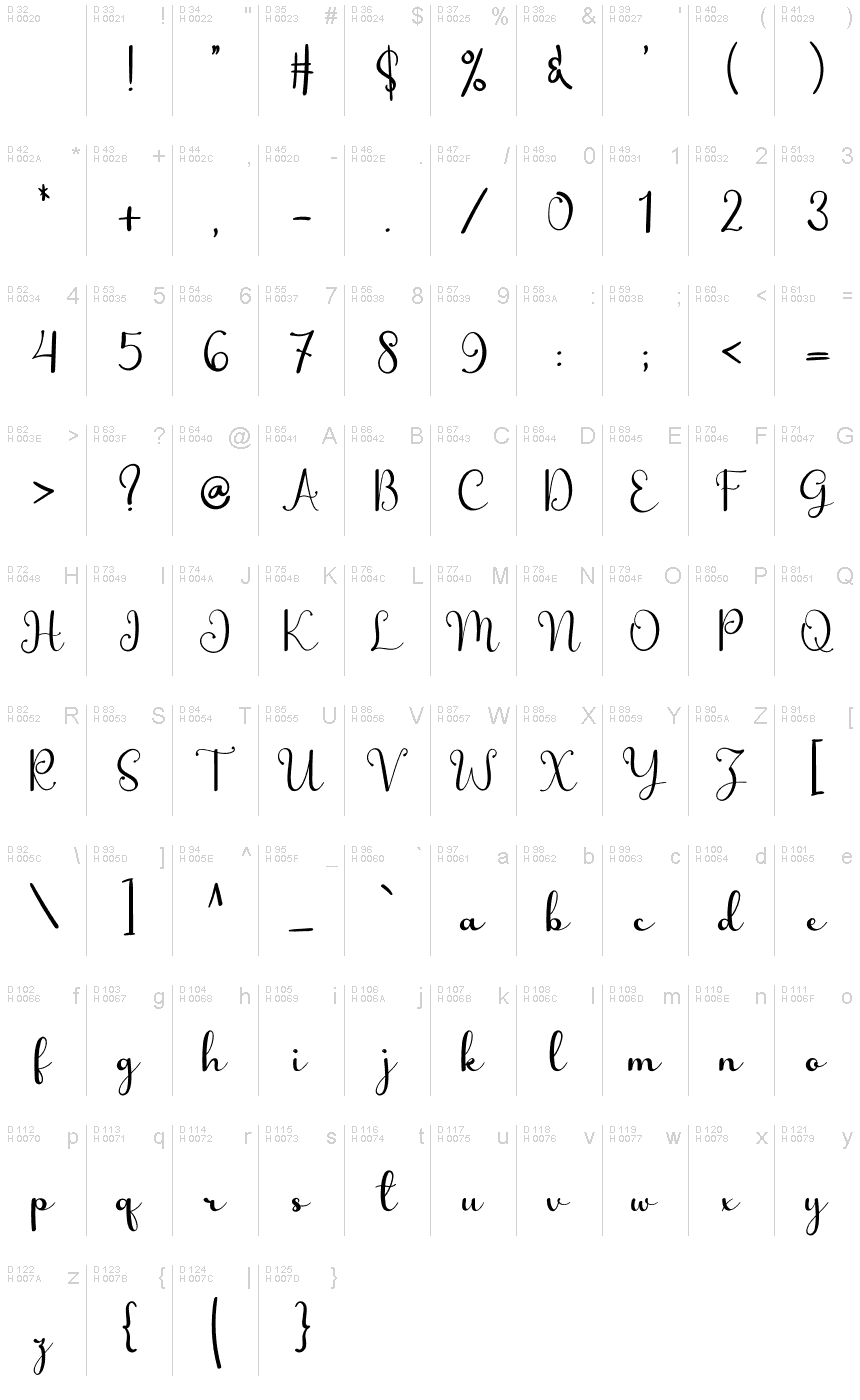
Kimberly
Kimberly is a stunning semi-light calligraphy font designed by Erik Studio. This graceful and elegant typeface is perfect for projects that require a touch of femininity or sophistication, such as wedding invitations, branding, or high-end fashion designs. With its flowing lines and delicate curves, Kimberly adds a refined touch to any project. Its semi-light weight makes it easy to read while maintaining its distinct personality. Whether you're designing an upscale magazine spread or a romantic greeting card, Kimberly is the perfect choice for adding a touch of elegance and charm to your work.